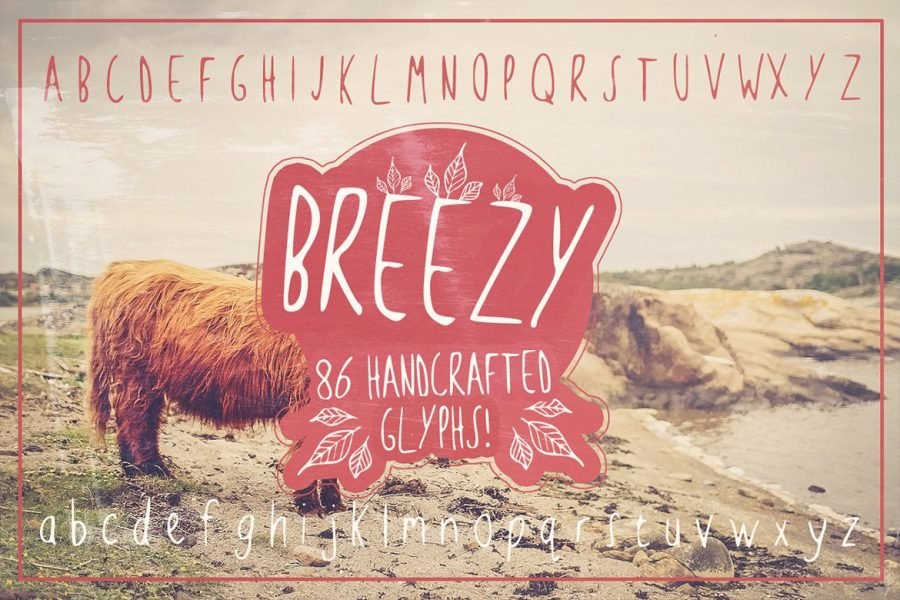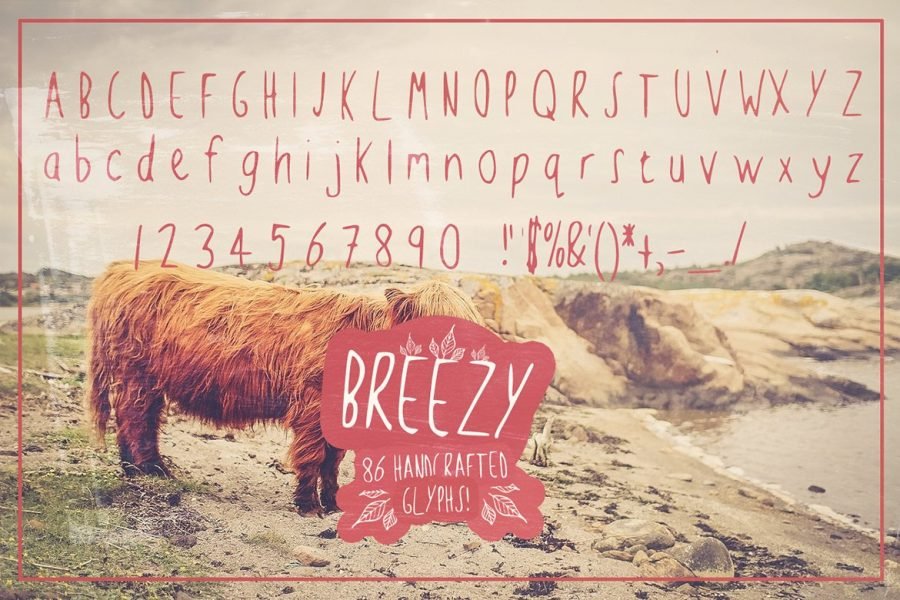
Breezy Handsketched Typeface
Introducing the latest and greatest handsketched font by Layerform.com!
Introducing “BREEZY”, a soft handsketched display typeface that oozes originality and uniqueness and really gives your work a sense of individuality.
This font is perfect for product packaging, vector art, digital art, whatever you can think of! 🙂